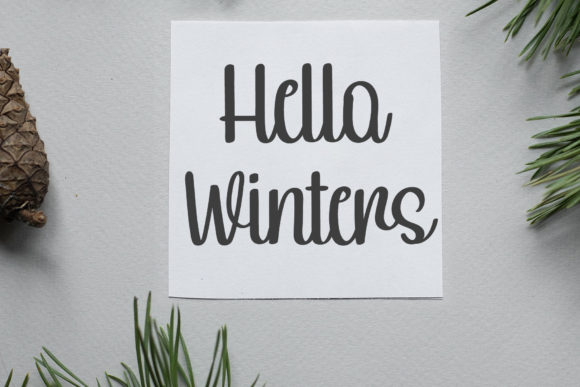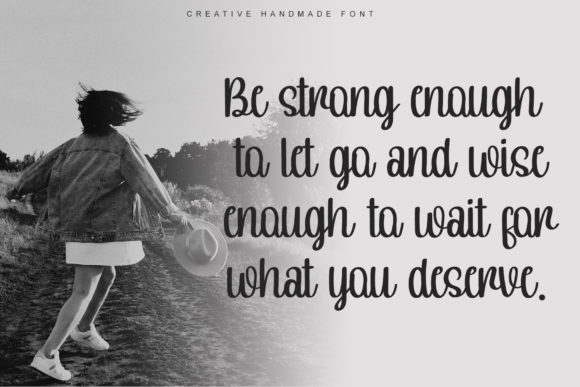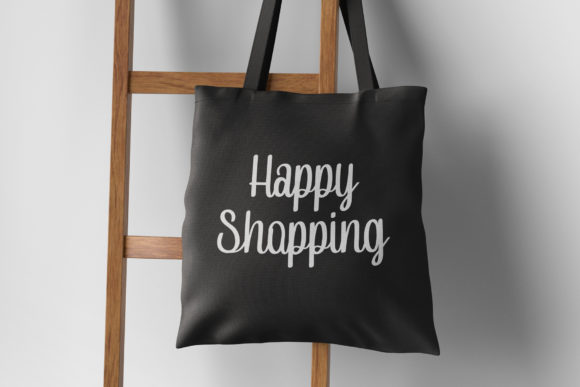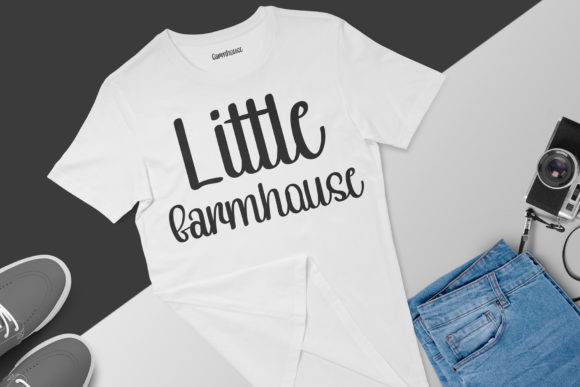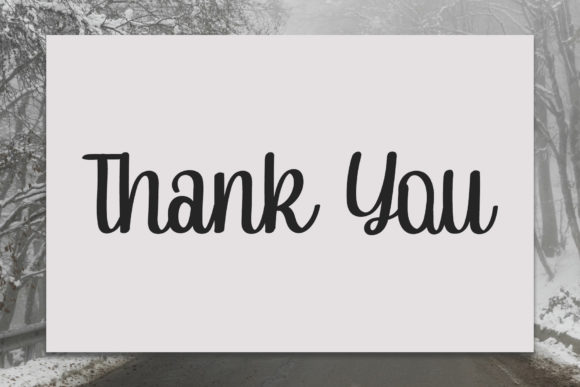
Introducing Creative Handmade Font: The Perfect Blend of Charming and Elegant
In the world of typography, few fonts manage to strike a balance between charm and elegance. However, Creative Handmade Font achieves just that, making it an ideal choice for designers and crafters looking to add a personal touch to their projects. This beautiful, handwritten font is perfect for creating stunning wedding invitations, thank you cards, quotes, greeting cards, logos, business cards, and more.
The Characteristics of Creative Handmade Font
So, what makes Creative Handmade Font so special? Here are a few key characteristics that set it apart:
- Unique and Handwritten: Each letter, word, and sentence is carefully crafted to give it a one-of-a-kind, handmade feel.
- Elegant and Refined: Despite its handmade nature, the font exudes sophistication and refinement, making it suitable for a wide range of applications.
- Charming and Whimsical: The font’s playful, cursive style adds a touch of whimsy and charm to any design.
- Highly Versatile: Whether you’re working on a wedding invitation, a business card, or a quote, Creative Handmade Font adapts seamlessly to different contexts.
Uses for Creative Handmade Font
The possibilities are endless when it comes to using Creative Handmade Font. Here are some ideas to get you started:
- Wedding Invitations: Create beautiful, one-of-a-kind wedding invitations that set the tone for the big day.
- Thank You Cards: Express your gratitude with stylish, handmade thank you cards.
- Quotes and Inspirational Messages: Add a touch of elegance and sophistication to your quotes and inspirational messages.
- Greeting Cards: Create stunning greeting cards for special occasions like birthdays, anniversaries, and holidays.
- Logos and Branding: Use Creative Handmade Font to create a unique and memorable logo for your business or brand.
- Business Cards: Stand out from the crowd with beautifully designed business cards that showcase your personality and style.
Tips for Working with Creative Handmade Font
To get the most out of Creative Handmade Font, here are a few tips to keep in mind:
- Experiment with Colors: Try pairing the font with different colors to create a unique and eye-catching design.
- Play with Ligatures: Take advantage of the font’s ligatures to add an extra touch of elegance and sophistication.
- Mix and Match: Combine Creative Handmade Font with other fonts to create a stunning and unique design.
- Pay Attention to Spacing: Make sure to adjust the spacing between letters and words to create a clean and visually appealing design.
Creative Handmade Font is a versatile and beautiful font that can elevate any design project. Its unique blend of charm and elegance makes it perfect for a wide range of applications, from wedding invitations to business cards. With its highly legible and refined style, this font is sure to become a favorite among designers and crafters. So why not give it a try and see the difference it can make in your designs?
Whether you’re a seasoned designer or a crafty DIY enthusiast, Creative Handmade Font is sure to inspire your creativity and help you create stunning designs that leave a lasting impression.